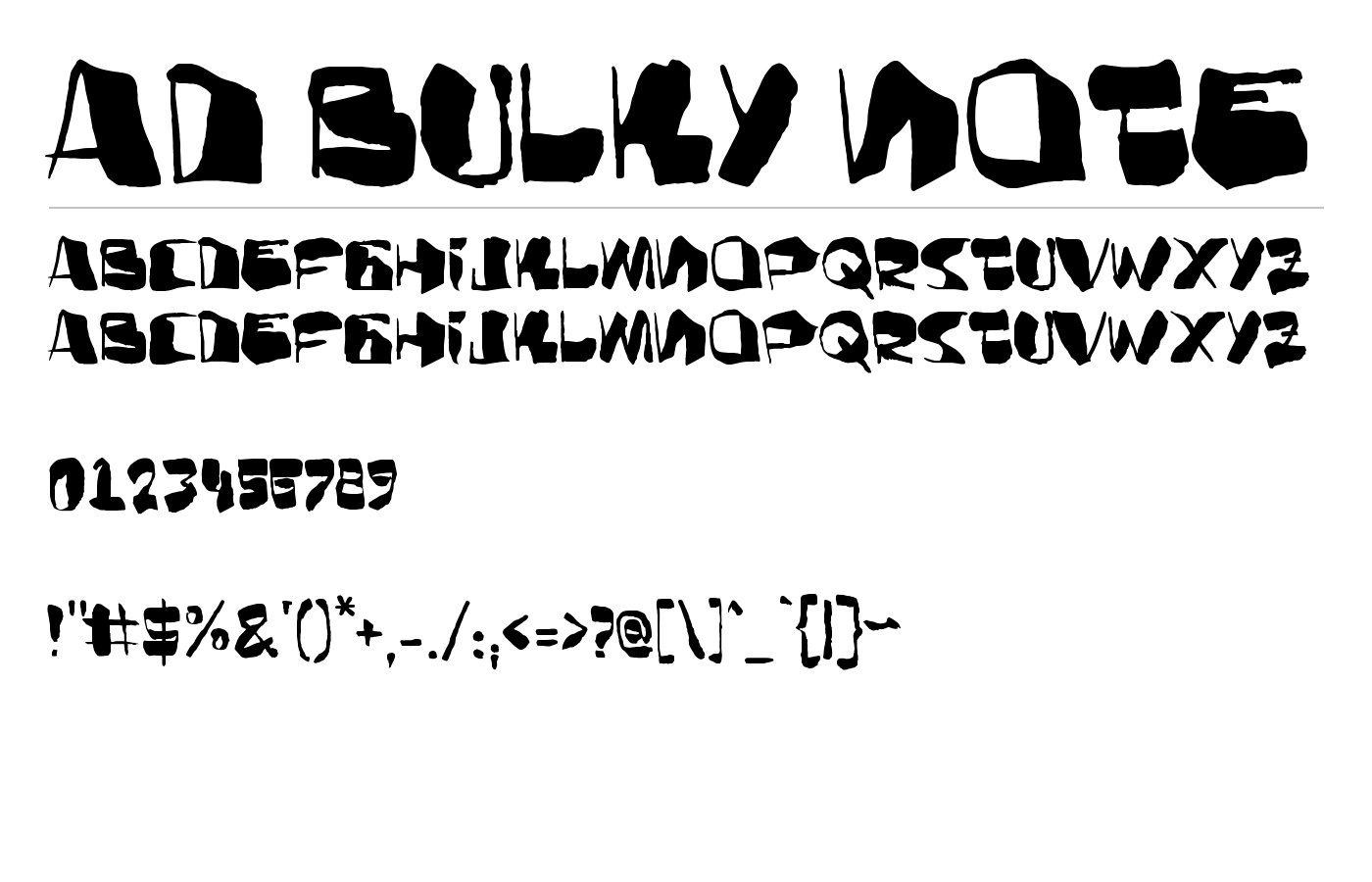
AD Bulky Note is a bold, hand-drawn sans serif font with an irregular, chunky style that gives it a rough, expressive character. Its quirky, uneven shapes and strong presence make it perfect for creative, eye-catching designs that need a playful yet impactful look. This font works well in posters, logos, and headlines where a unique, artistic vibe is desired.
AD Bulky Note Font
About AD Bulky Note Font